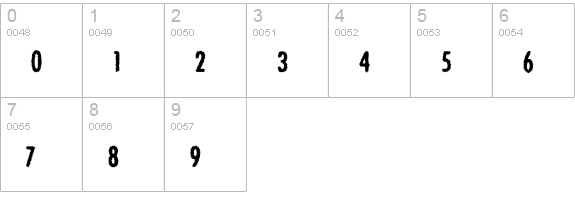
BON ViVER Font Details
BON ViVER is a stunning and elegant font that exudes sophistication and style. With its modern and sleek design, this font is perfect for adding a touch of class to any project. The sleek lines and intricate details of BON ViVER make it a versatile choice for a wide range of design applications, from logos to wedding invitations to branding materials. What makes BON ViVER even more appealing is that it is available for free download at FontsMarket.com. This means that you can easily access this beautiful font without any cost, making it a fantastic option for designers on a budget or anyone looking to add a touch of luxury to their projects without breaking the bank. Whether you're creating a high-end brand identity or simply want to elevate your designs with a touch of sophistication, BON ViVER is the perfect choice. Download this exquisite font for free today at FontsMarket.com and take your designs to the next level.